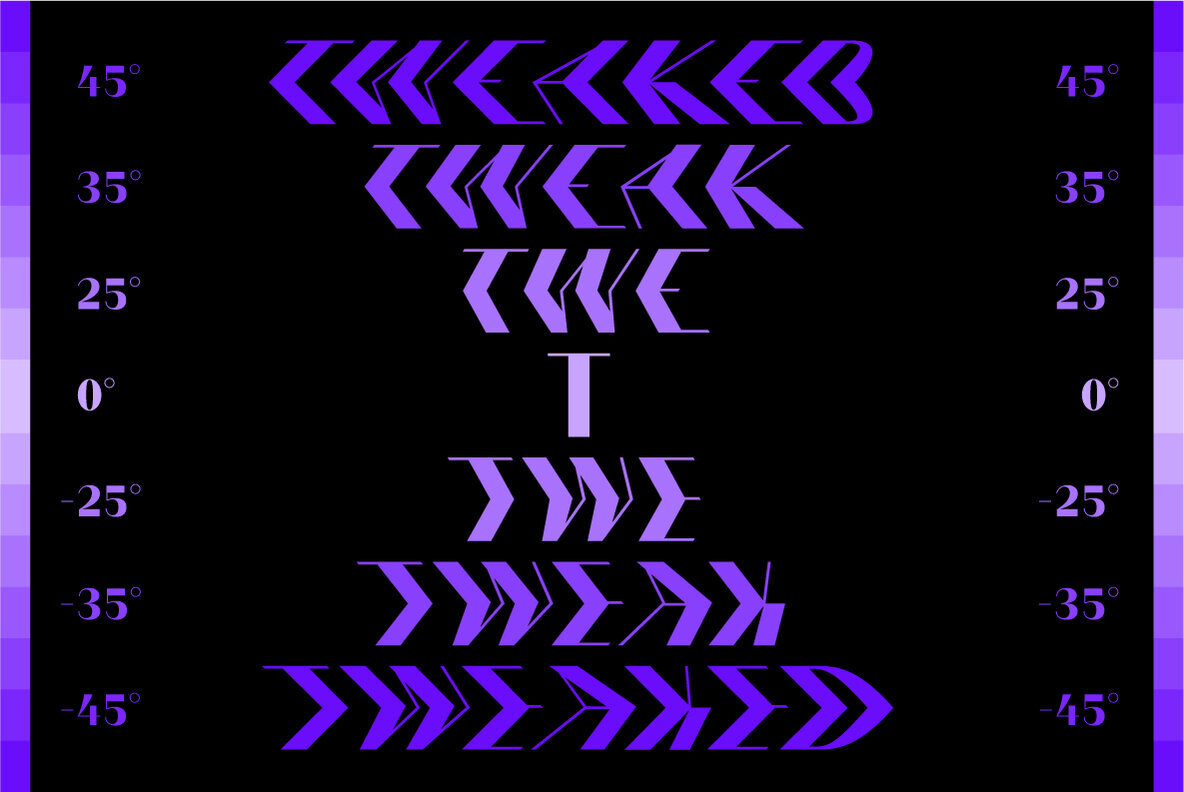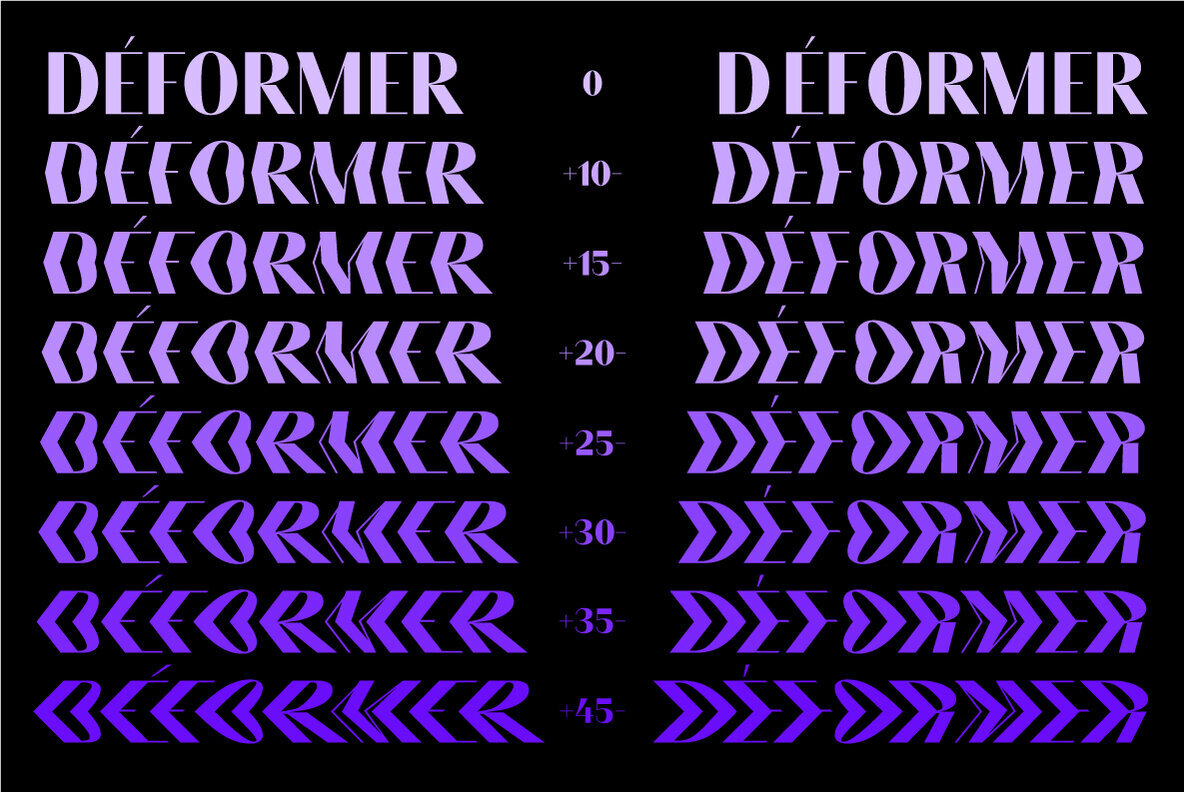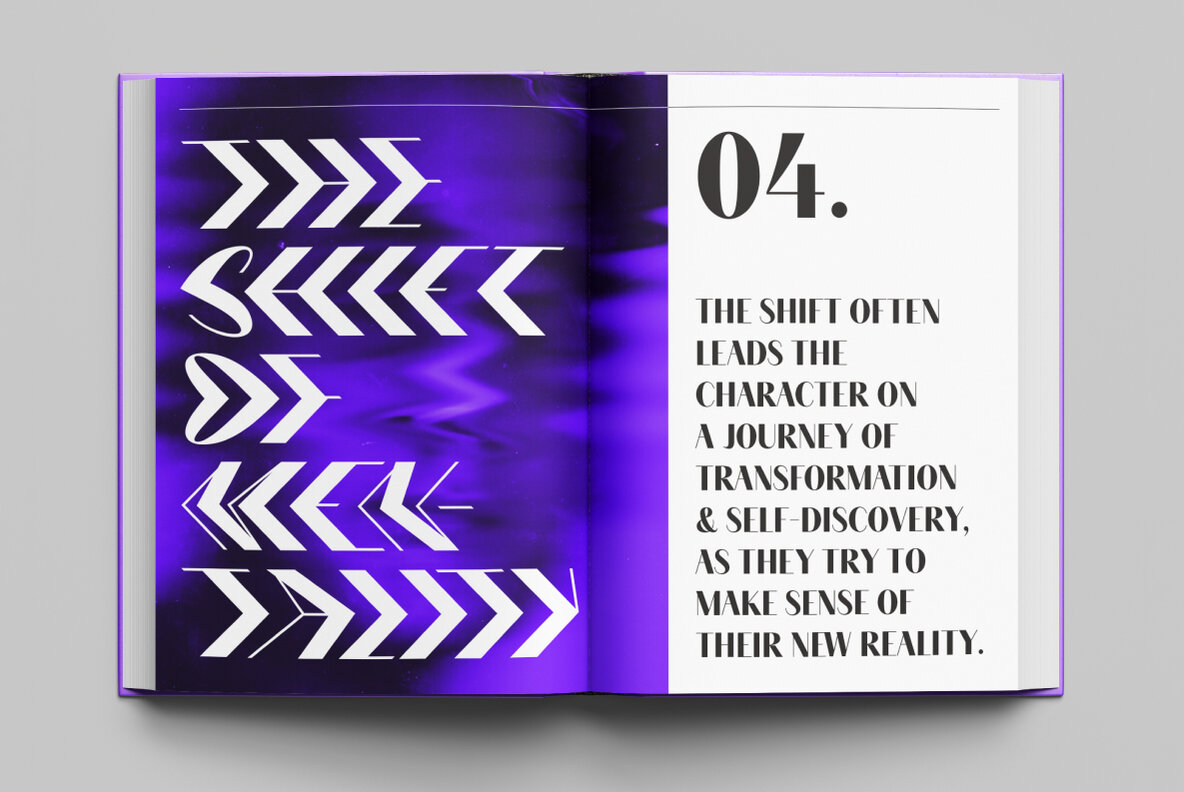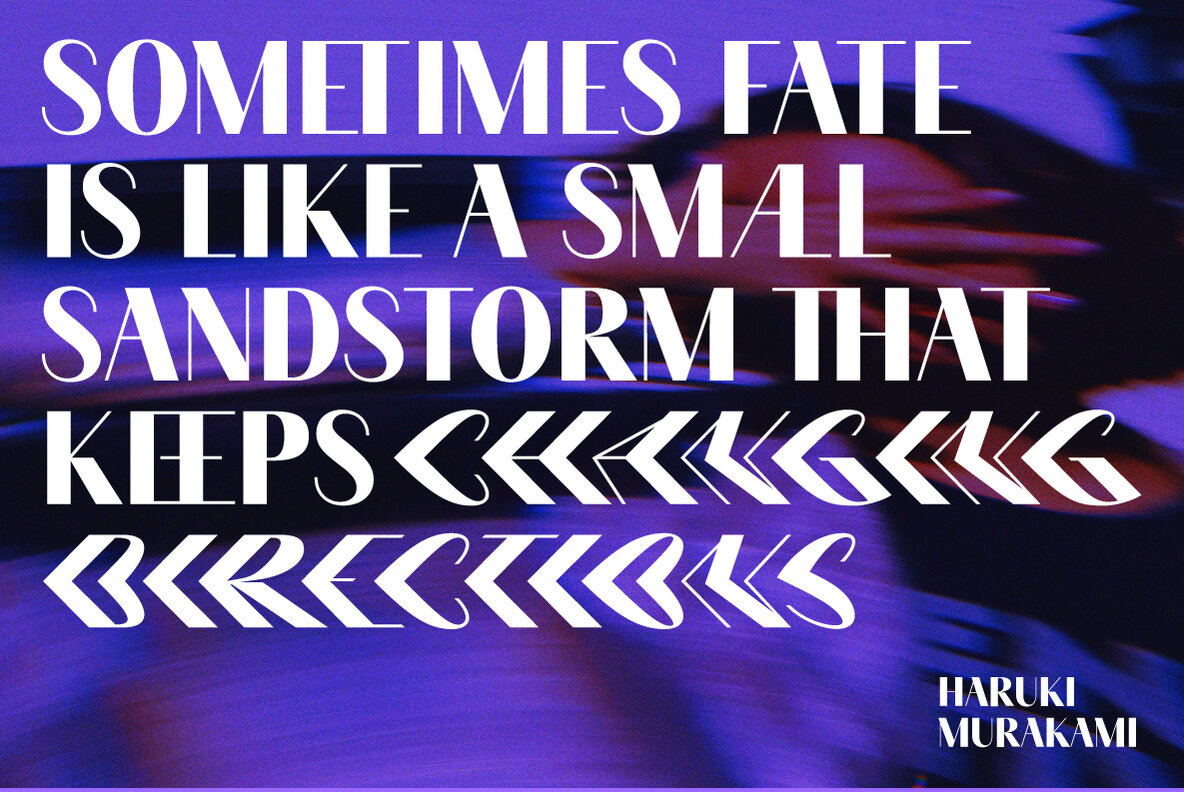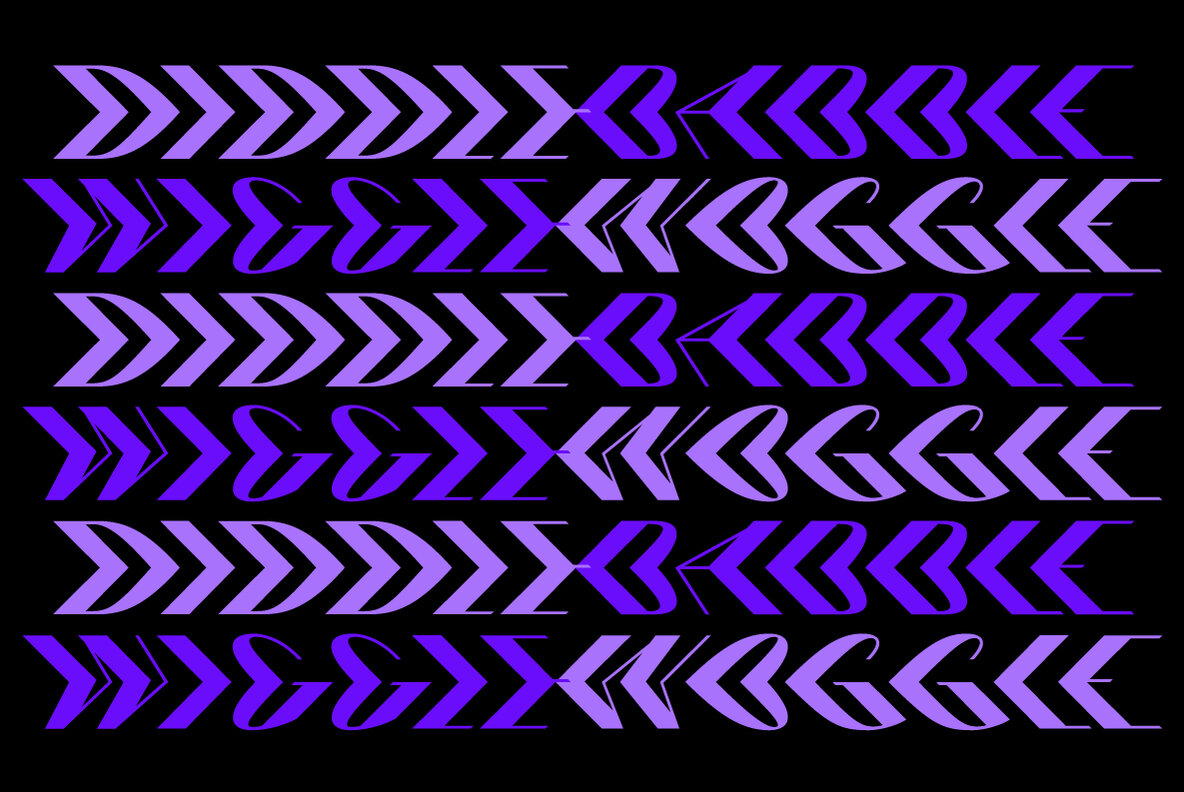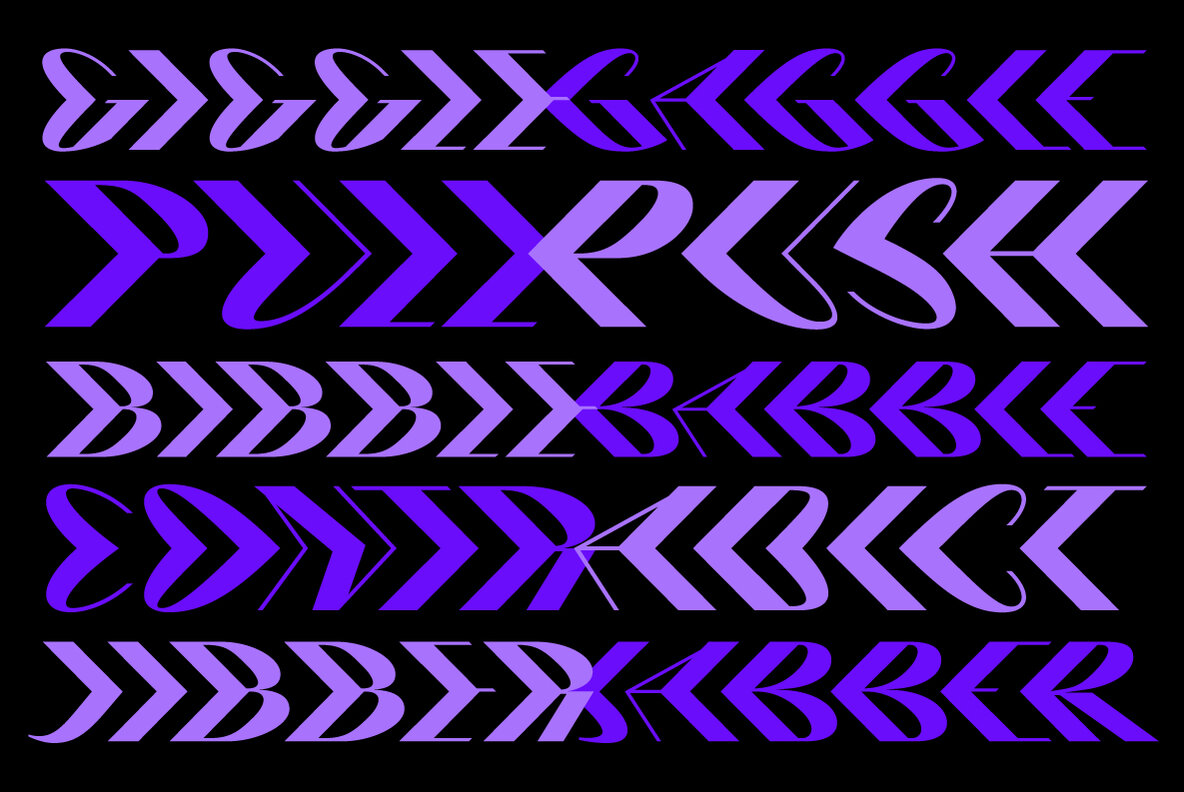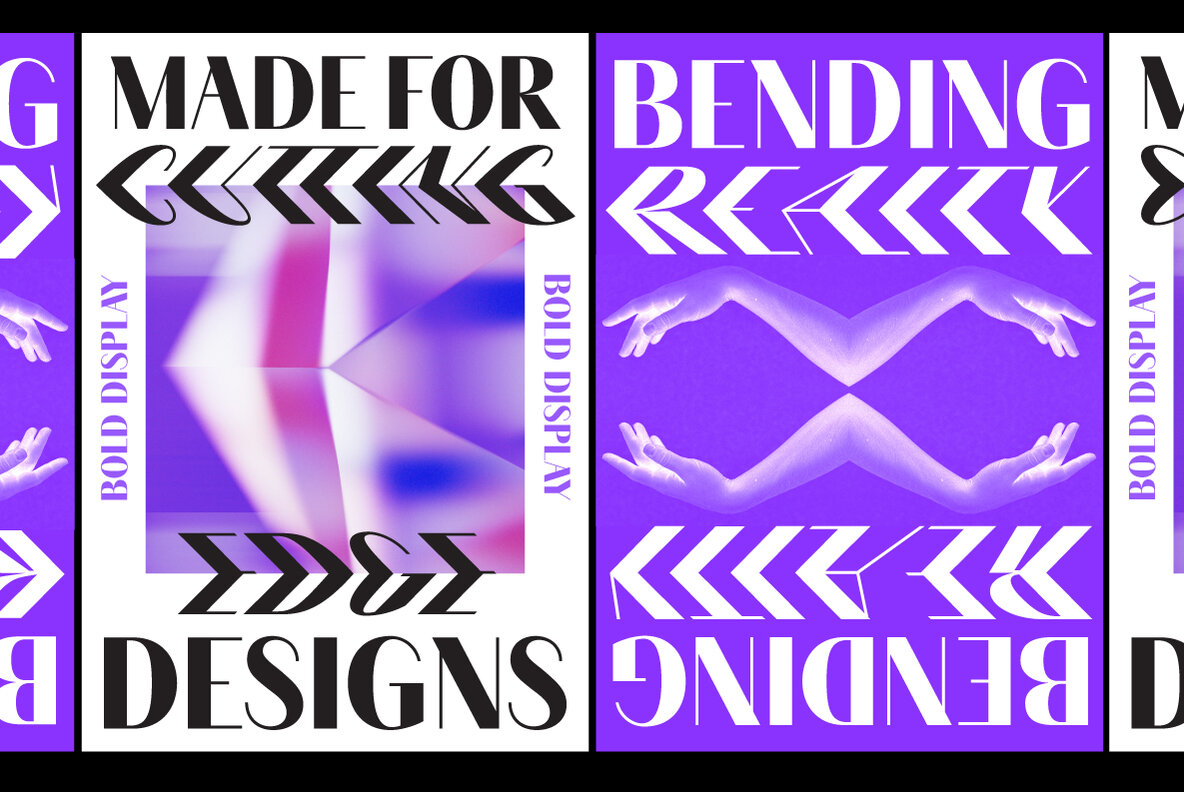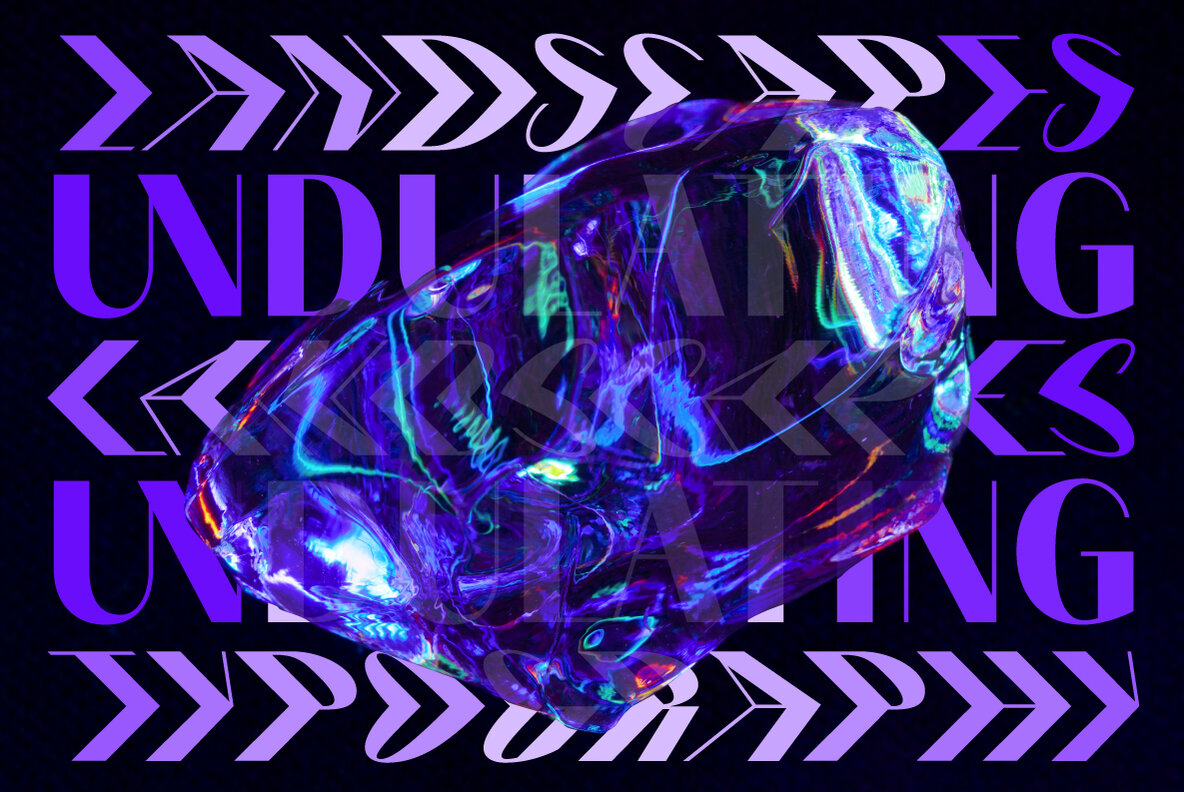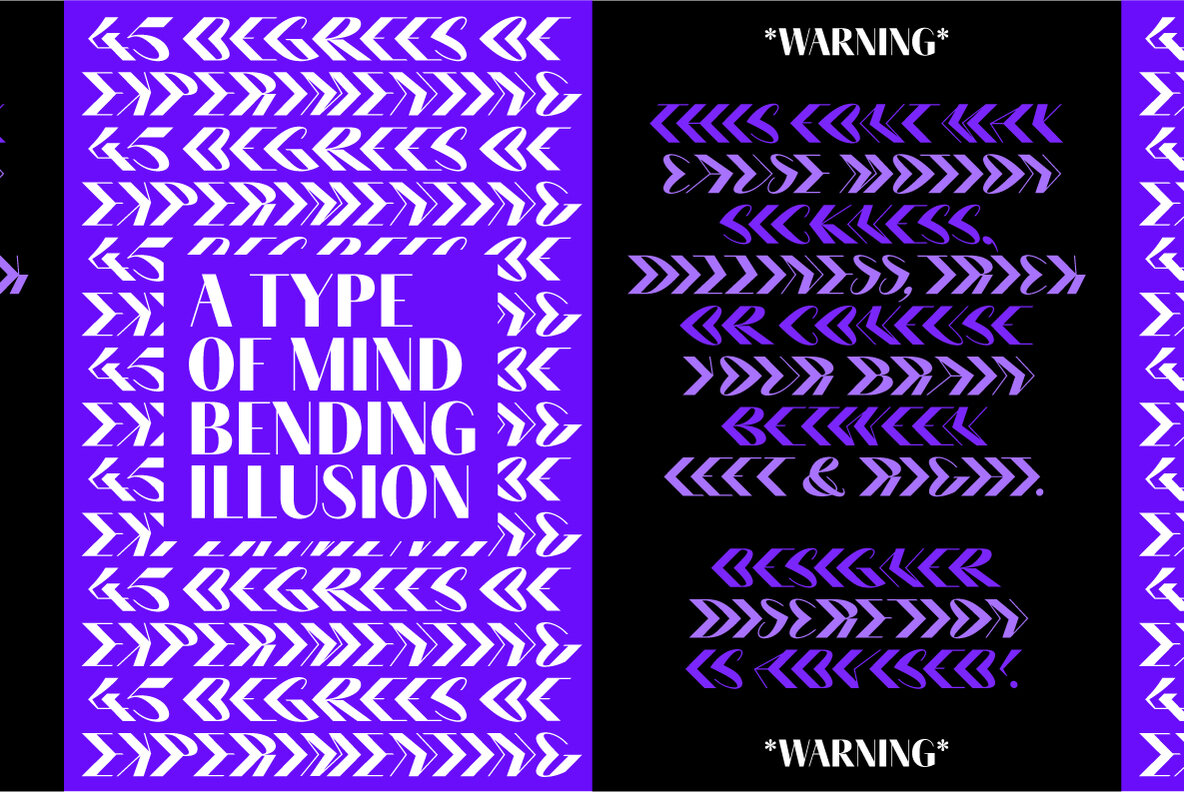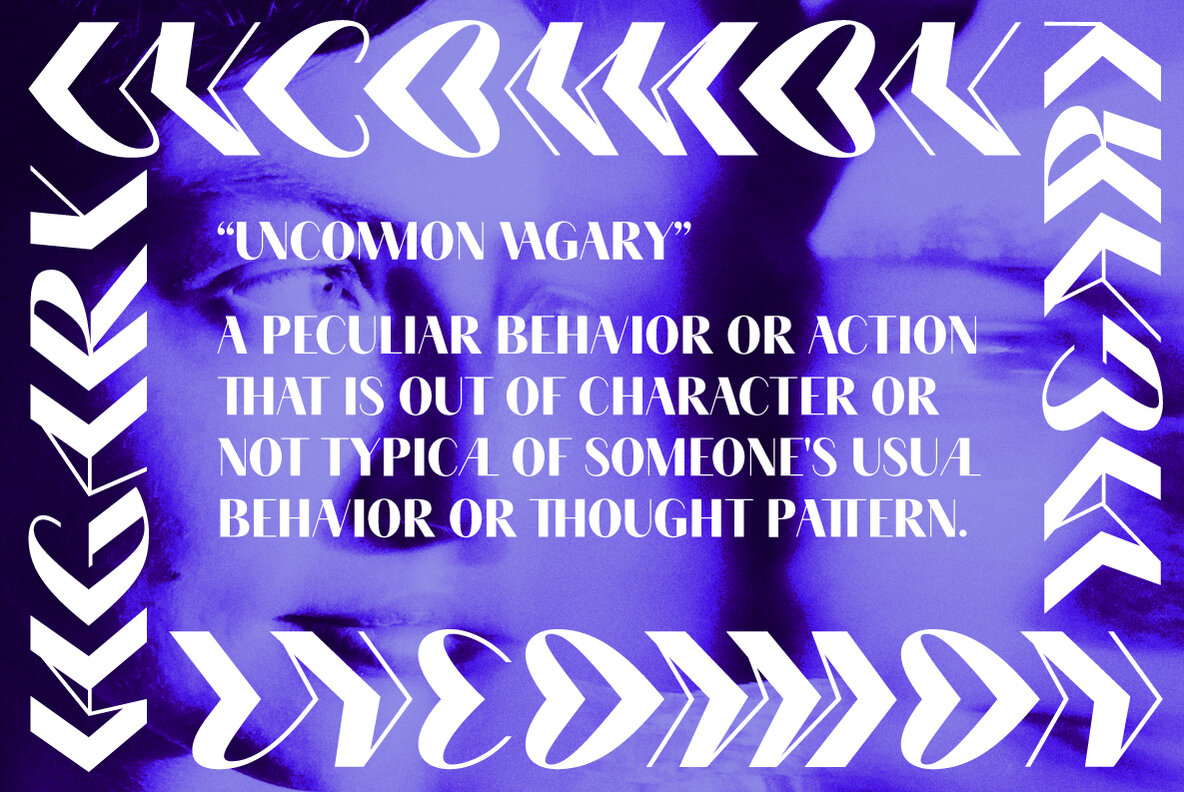
Tweaker 1
Tweaker is a high contrast sans serif typeface. This variable typeface pushes the bending style of the letters to an extreme of 45 degree angel. Tweaker allows the user to adjust and play with the degree of the bending from 0-45 on either side. The typeface includes the Latin alphabet set with accented letters and open type features like ligatures. It is perfect for display usages to give your design an edgy look. From headings to logos to posters, Tweaker gives you 45 degrees of control!
Shrishti Vajpai is a graphic designer from New Delhi, with a keen interest in typography and type design. With a primary focus on branding and visual communication, her style has a heavy typographic bent. After pursuing a Master’s in Graphic Design from IED- Florence, she started collaborating with Zetafonts,...